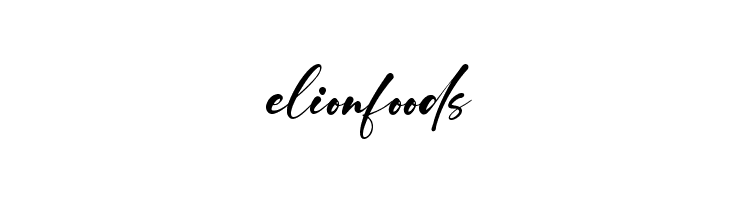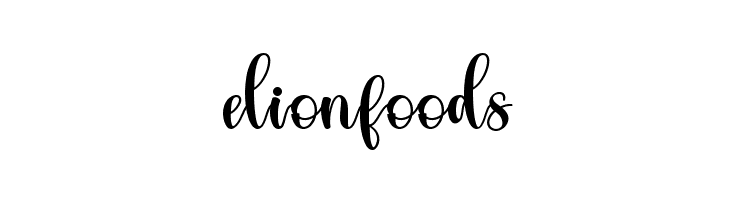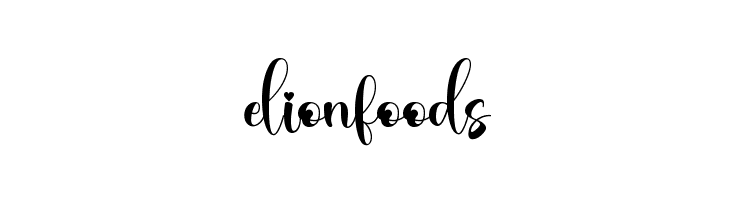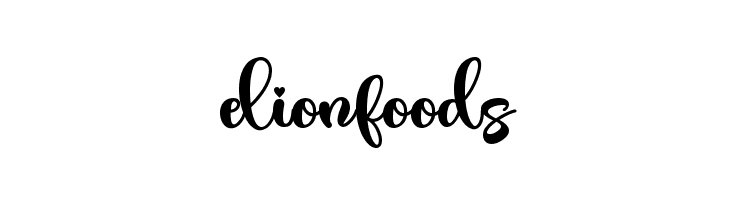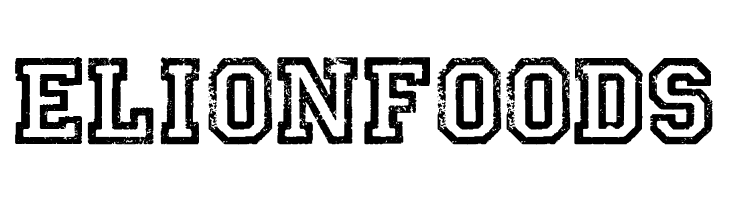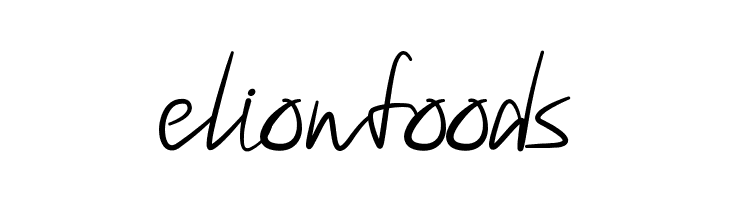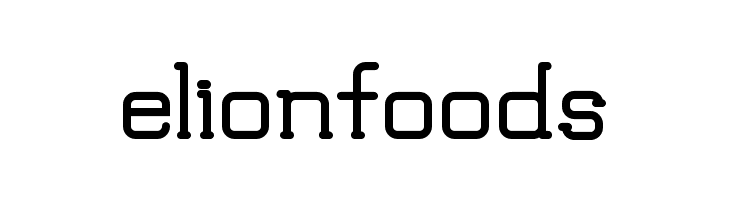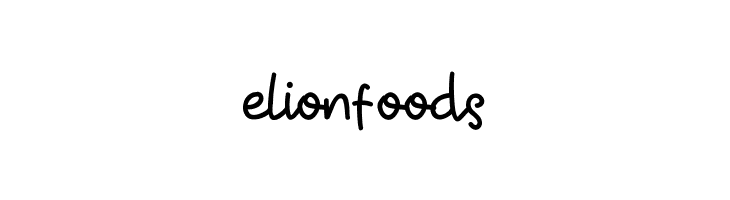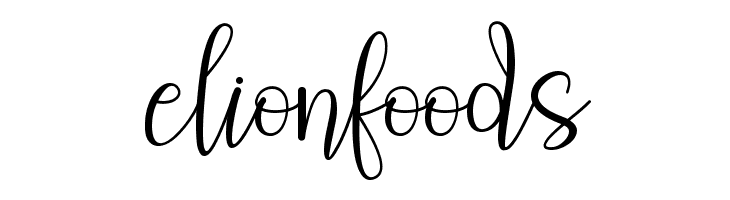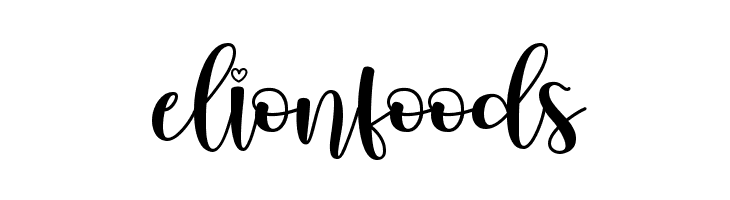
A lively and elegant script font with flowing, cursive letterforms.
A bold, playful font with rounded, organic shapes and a whimsical style.
A modern, geometric sans-serif font with a clean and professional look.
A bold, modern sans-serif font with clean lines and high contrast.
A modern, italicized font with medium contrast and a sleek, professional look.
A modern, geometric font with a monospaced feel and rounded edges.
A bold, outline-style font with geometric forms and a modern aesthetic.
A playful and casual script font with fluid, connected letterforms and a hand-drawn feel.
A bold, shadowed font with a modern, geometric style.
A bold, industrial stencil font with geometric shapes and high legibility.
A playful, whimsical script font with a handwritten style.
A lively and playful script font with bold, flowing strokes.
A bold, playful font with whimsical, hand-drawn letterforms.
A bold, distressed font with a vintage collegiate style.
A playful, bold font with rounded, hand-drawn characters.
A modern, geometric font with bold, angular letterforms and a strong, industrial aesthetic.
A modern, geometric outline font with a consistent line thickness and slightly condensed style.
A geometric, futuristic font with angular, segmented outlines.
A bold, futuristic font with geometric, three-dimensional outlines.
A graceful and elegant script font with fluid, connected strokes.
A playful, handwritten-style font with dynamic strokes and whimsical charm.
A playful and elegant script font with a handwritten feel.
A bold, handwritten font with playful loops and expressive characters.
A modern, elegant cursive font with interconnected characters and a fluid style.
A whimsical and elegant script font with flowing, interconnected letters and playful loops.
A playful and elegant handwritten script font with medium contrast.
A dynamic and elegant script font with flowing, cursive letterforms.
A modern, elegant script font with flowing, cursive characters.
A modern, geometric font with clean lines and a minimalist aesthetic.
A modern, geometric italic font with a dynamic, cut-out design.
A modern, geometric outline font with clean lines and a minimalist style.
A modern, geometric font with thin lines and tight spacing.
A dynamic, cursive script font with a natural, handwritten style.
A graceful script font with flowing, interconnected strokes and decorative flourishes.
A lively, flowing script font with elegant, elongated letterforms.